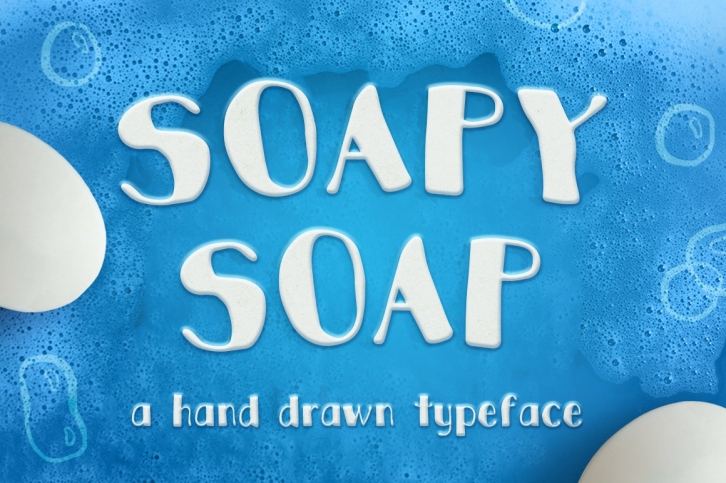
Rub-a-dub-dub Soapy Soap in the tub!
Soapy Soap is a fun, quirky hand drawn typeface. Use it in any and all of your projects.
What's that - You're making some invitations to a party at your place? Oh, a product launch is coming down the line and you want a fun font with pizzazz? I know, you're a blogger and you want a fresh face for your DIY articles. Well, look no further! We'll clean house with Soapy Soap!!
This squeaky clean little guy has a few features you should know about:
- There are two fonts within this package: filled and regular (examples in previews above)